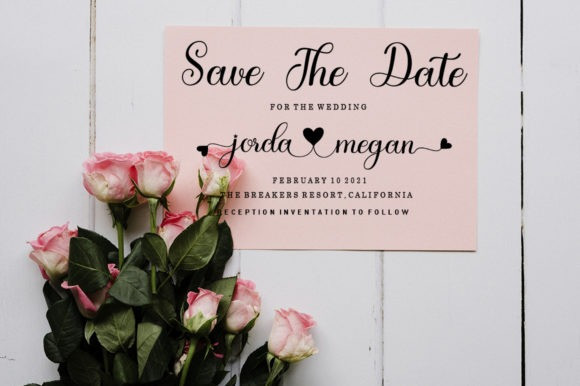
James Sophia Font
James Sophia Calligraphy Font is an incredibly unique script font that has a choice of hearts and stars swashes. Masterfully designed to become a true favorite, this font has the potential to bring each of your creative ideas to the highest level!